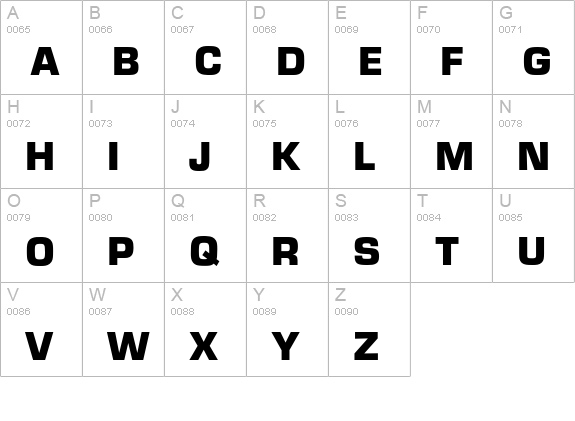
Eurostile BQ Bold is a strong, high-contrast variant in the Eurostile typeface family \xE2\x80\x94 well suited to headlines, attention-grabbing titles, and strong calls-to-action.
Eurostile BQ Bold is a modern and versatile font that exudes strength and confidence. Its bold, geometric design makes it perfect for creating impactful headlines, titles, and branding materials. The clean lines and sharp edges of Eurostile BQ Bold give it a futuristic and sophisticated look that is sure to make any design stand out. The best part about Eurostile BQ Bold is that it is available for free download at FontsMarket.com. This means that you can easily access this powerful font and use it in your projects without any cost. Whether you are designing a poster, website, or logo, Eurostile BQ Bold will bring a bold and contemporary touch to your work. Download Eurostile BQ Bold for free today and elevate your designs with its modern and impactful style.